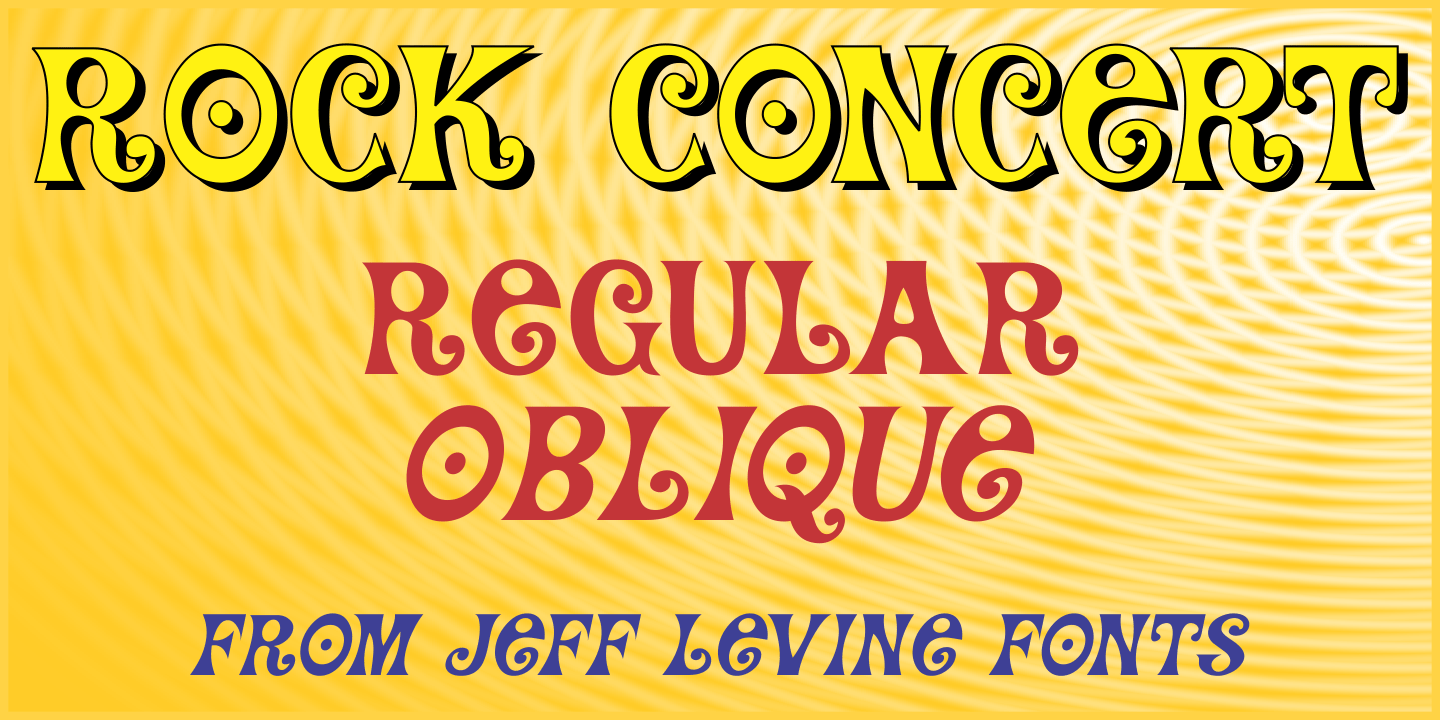
Rock Concert
Rock Concert JNL is a playful free form type design inspired by the opening title and credits for the 1964 motion picture comedy “Send Me No Flowers” starring Rock Hudson, Doris Day, and Tony Randall.
Strongly resembling hippie movement poster lettering of the mid-1960s, this fonts fits well with any retro project emulating the “Peace and Love” movement or (as its name implies) re-creating period piece rock concert posters.
Rock Concert JNL Regular
Rock Concert JNL Oblique